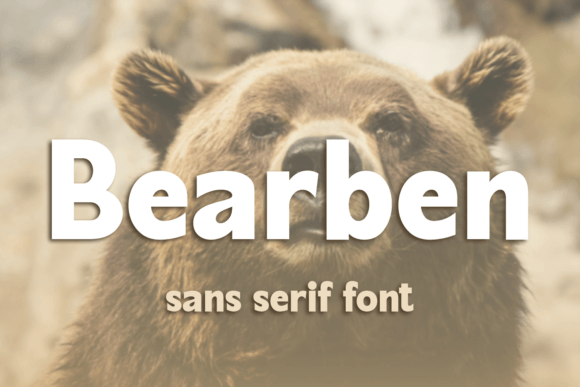
Introduction to Bearben Font
Bearben is a modern sans-serif font that blends clean lines with subtle curves, offering a sleek and professional appearance.
Perfect for branding, web design, and editorial layouts, Bearben delivers readability and style, making it versatile for both contemporary and minimalist design projects .
Key Features of Bearben Font
Why Choose Bearben Font?